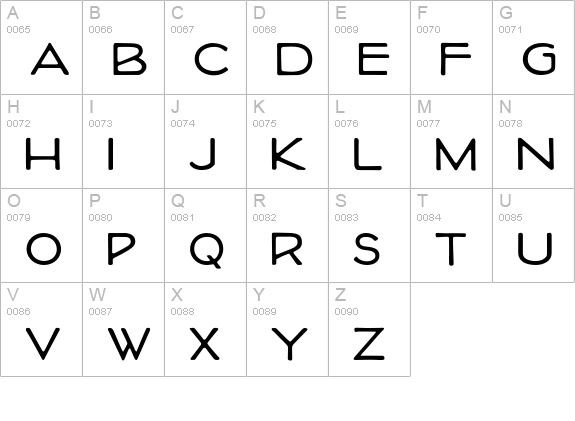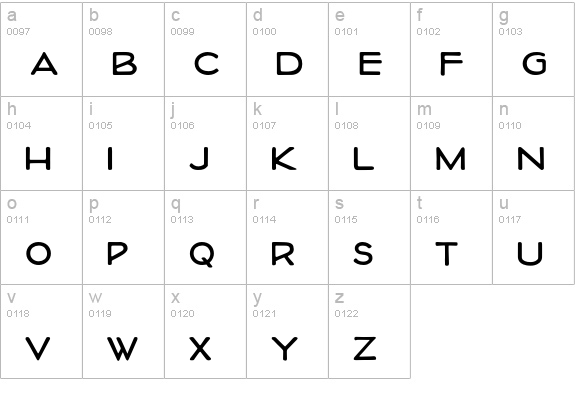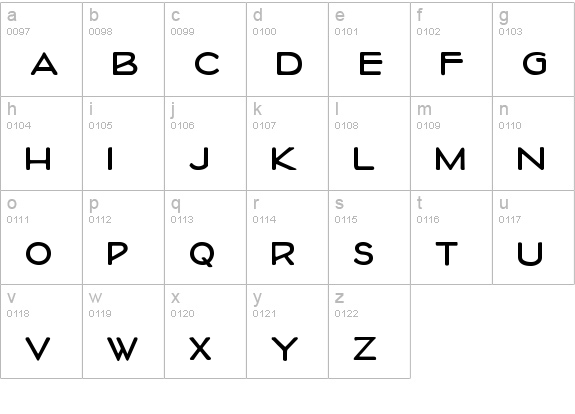
Thermo Font Details
Thermo font is a stunning display typeface that combines elegance and modernity in a perfect harmony. Its sleek and stylish design will captivate the attention of any viewer, making it ideal for a wide range of creative projects. The clean lines and geometric shapes of Thermo font exude a sense of sophistication, while its bold and strong presence adds a touch of boldness to any design. But what sets Thermo font apart from other fonts is the fact that it is absolutely free! Yes, you read that right. Thermo font is freely available to download at FontsMarket.com. This means that you can bring your design visions to life without breaking the bank. Whether you're a professional designer, a student, or simply a creative enthusiast, Thermo font offers you the opportunity to add a touch of professionalism and creativity to your projects without any financial constraints. Imagine the possibilities with Thermo font. From logos and branding materials to posters, invitations, and social media graphics, this versatile typeface can elevate your designs to new heights. Its wide range of weights and styles further enhances its versatility, allowing you to experiment and create captivating compositions that leave a lasting impression. With Thermo font, you can unleash your creativity and let your imagination run wild. Its legibility and distinct personality make it suitable for various design purposes, ensuring that your message is conveyed effectively and stylishly. The attention to detail in every letterform of Thermo font showcases the dedication and craftsmanship behind its creation, guaranteeing a refined and professional result in every design application. So why wait? Head over to FontsMarket.com and download Thermo font for free today. Join the countless designers who have already embraced this remarkable typeface and start adding a touch of elegance and modernity to your designs. With Thermo font, the possibilities are endless, and the best part is, it won't cost you a penny.